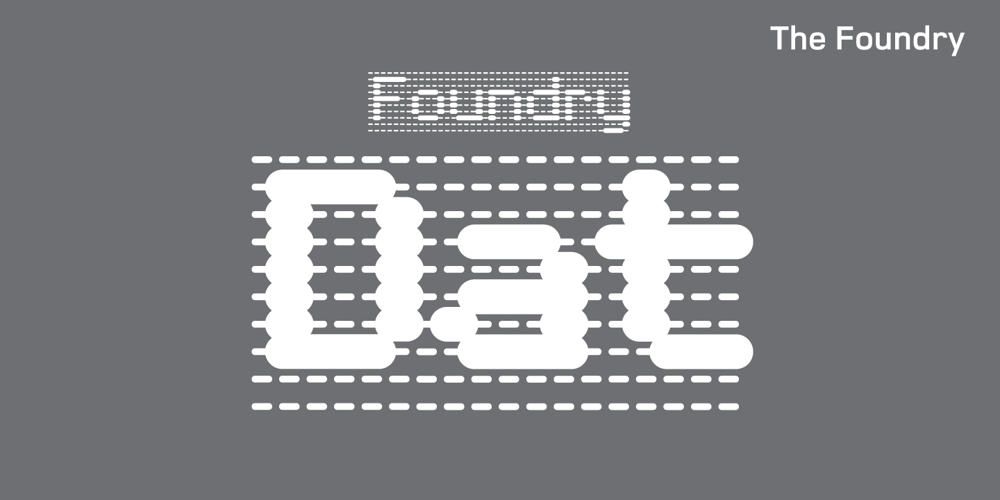
Foundry Dat Font Family was designed by Freda Sack, David Quay, Stuart De Rozario and published by The Foundry. Foundry Dat contains 5 styles and family package options. Foundry Dat is created with a common horizontal dash grid structure for accurate layering when characters are superimposed. Foundry Dat’s integrated background aligns vertically and horizontally, when set solid, forming a continuous pattern. Foundry Dat’s companion family Foundry Dit functions as a legible correspondence font, with a ‘typewriter’ feel. Each family contains: light, regular, medium and bold weights. Foundry Dat comes with a series of dashes to extend the background grid. Characters can also be offset to make different patterns – in the process becoming images – a graphic language with total integration of form and function.